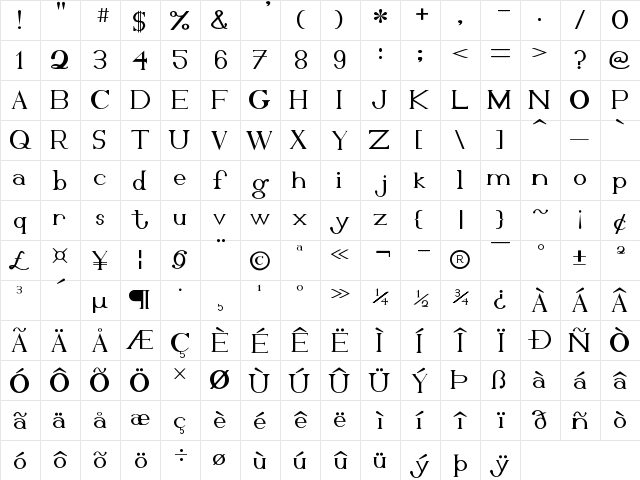
Kinryu_No14 Regular
Design Context for Kinryu_No14 Typeface
Kinryu_No14 is a composed and adaptable typeface that performs quietly and consistently across a wide range of design contexts.